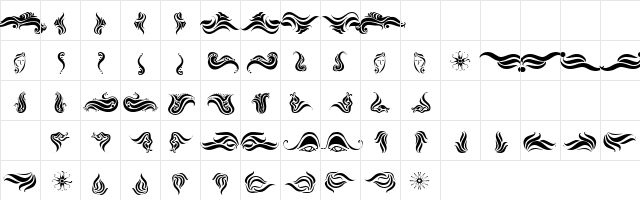
Complete Absinth Flourishes II Regular glyph index. Displaying only characters natively supported by Absinth Flourishes II Regular font.
Absinth Flourishes II is a composed and adaptable typeface that performs quietly and consistently across a wide range of design contexts.